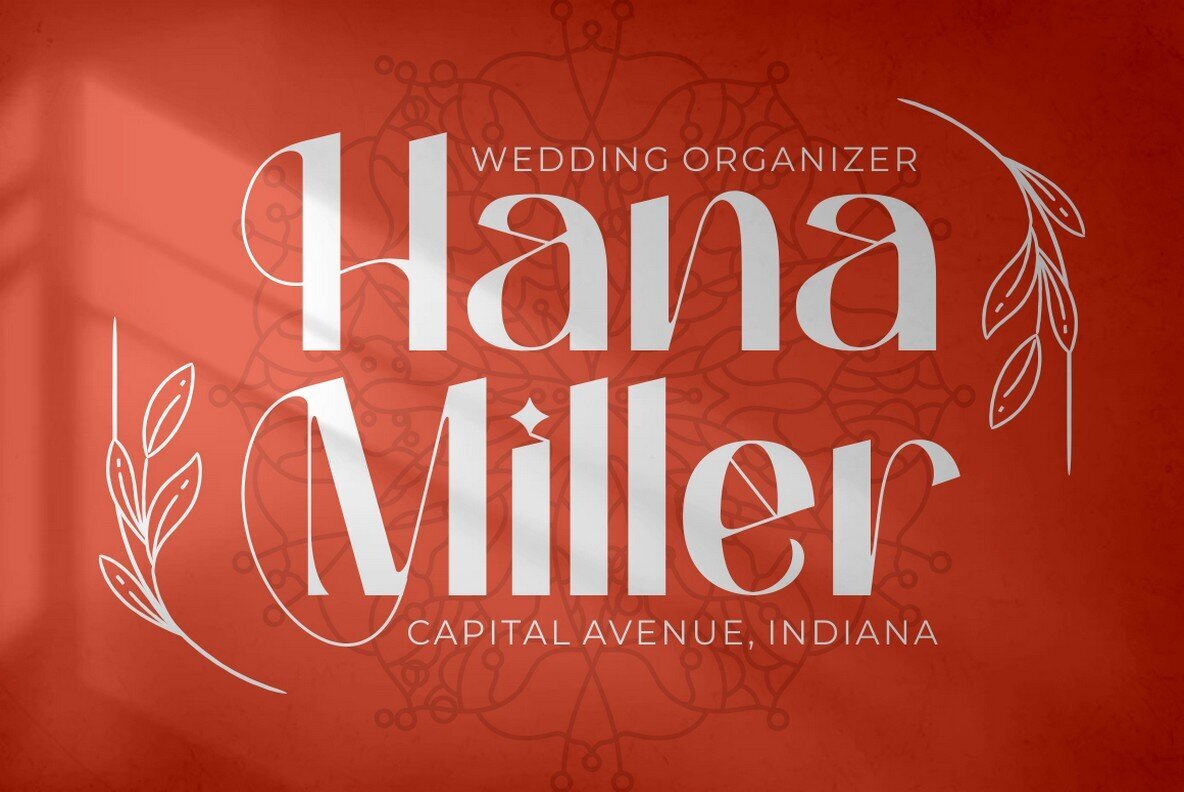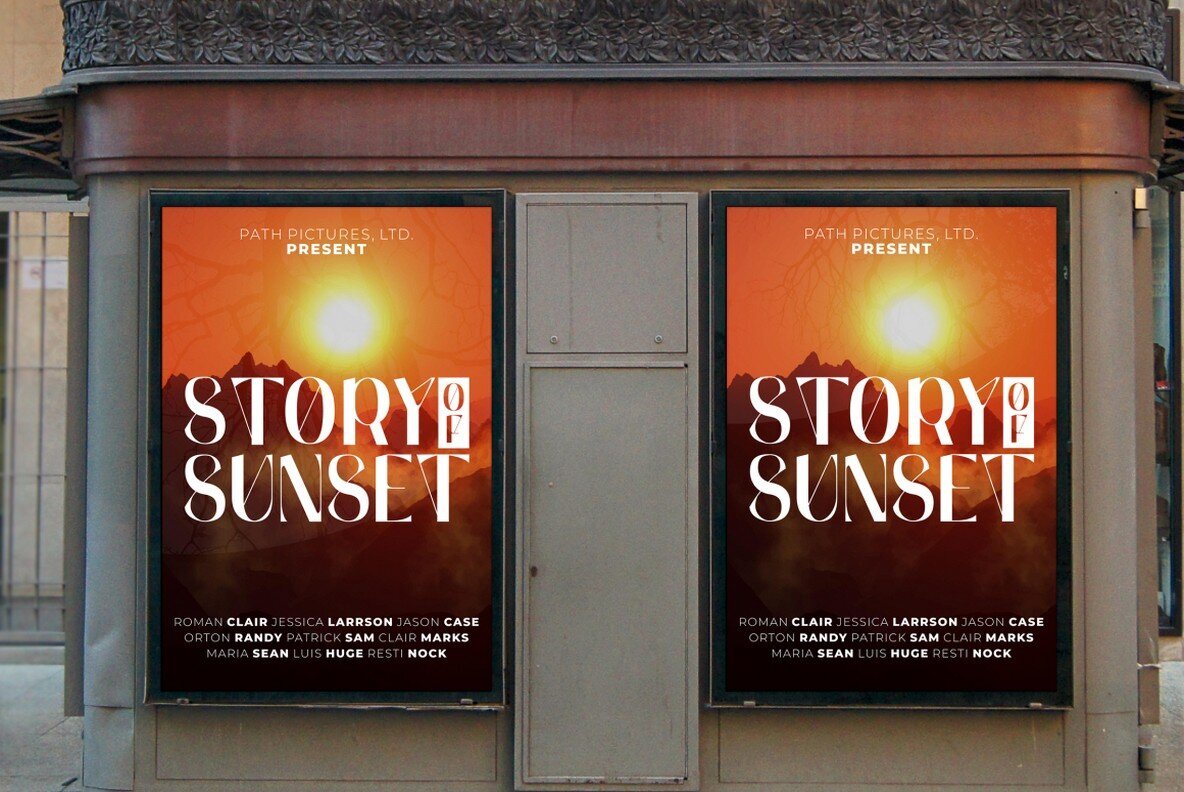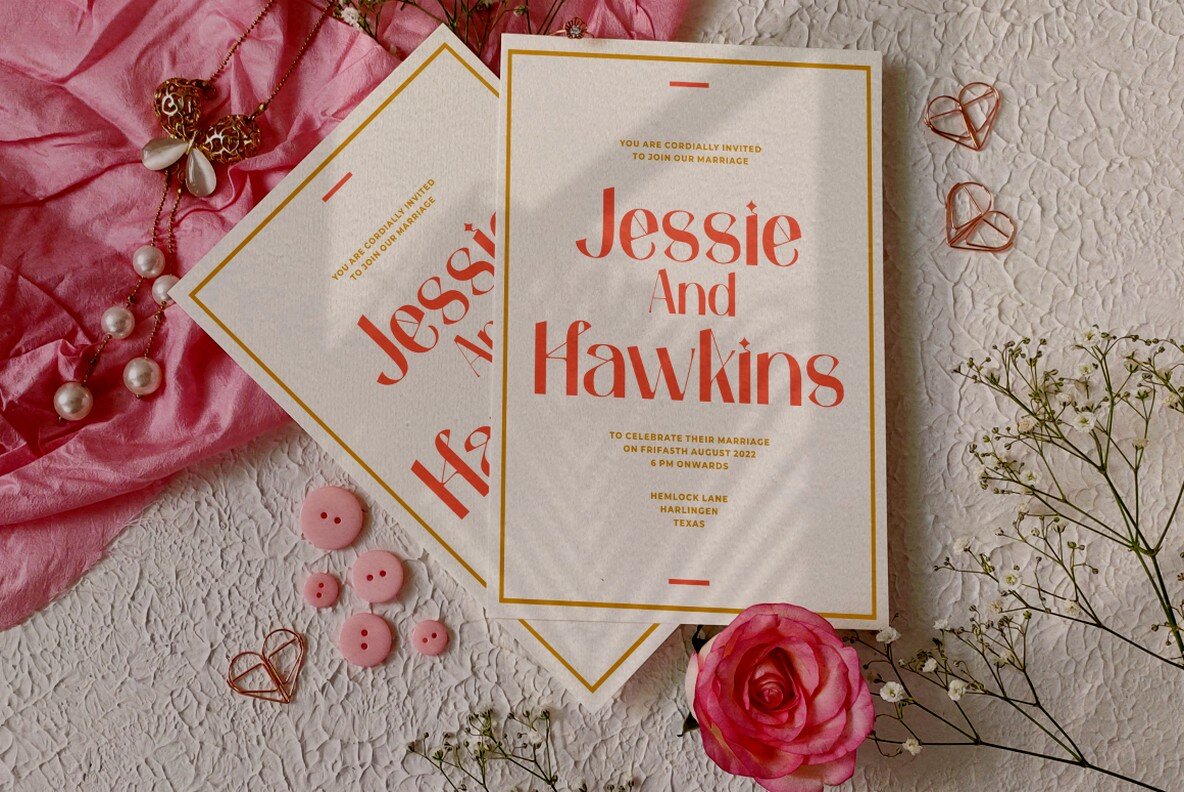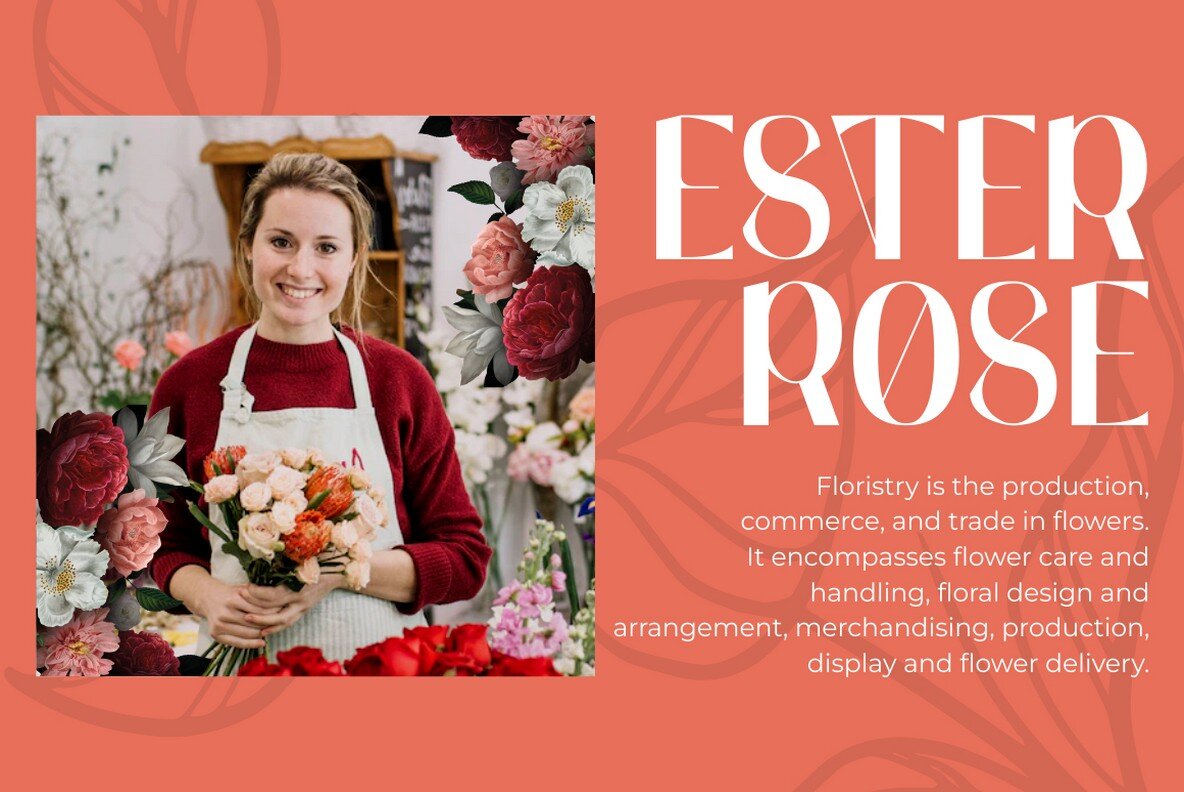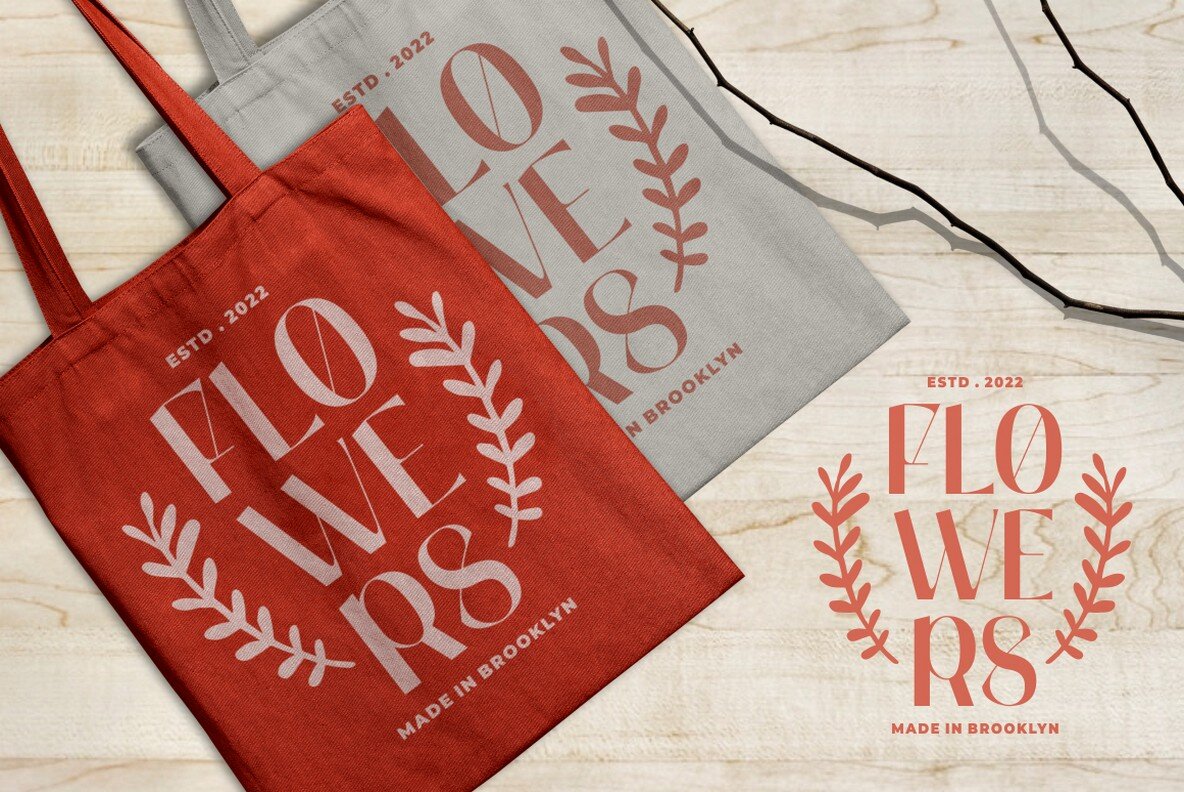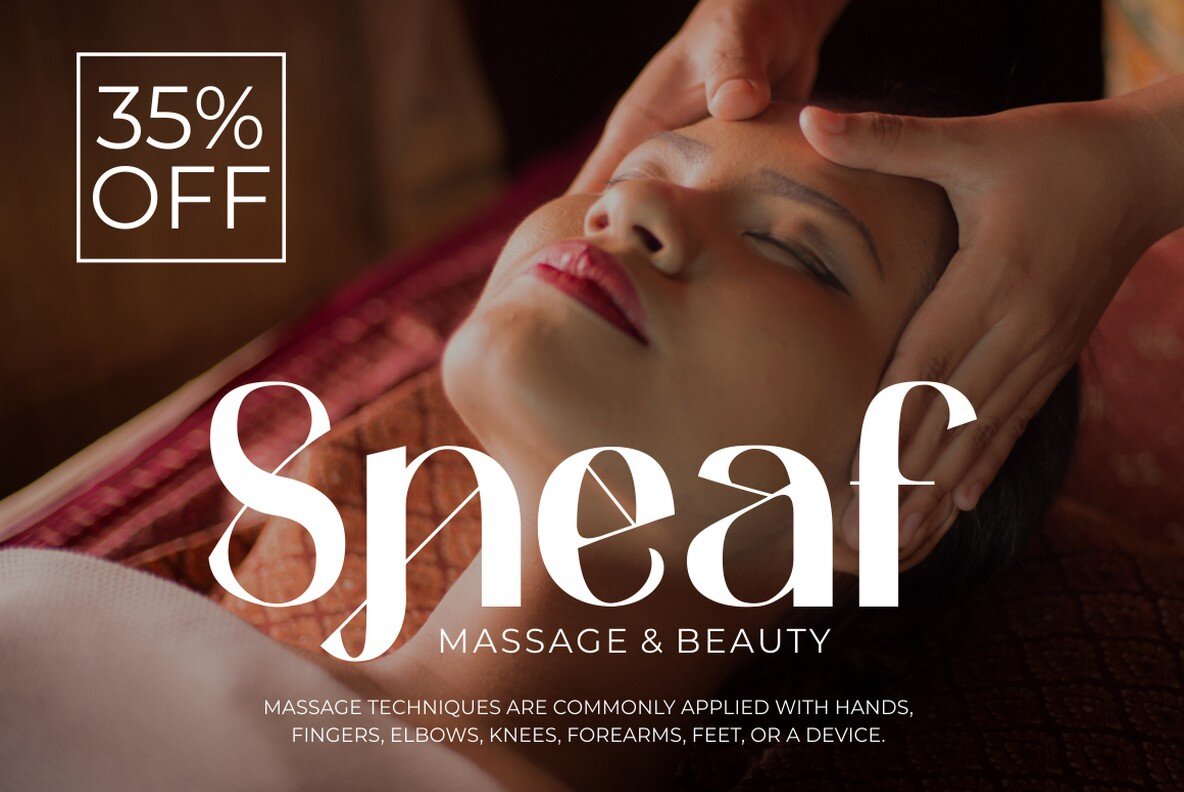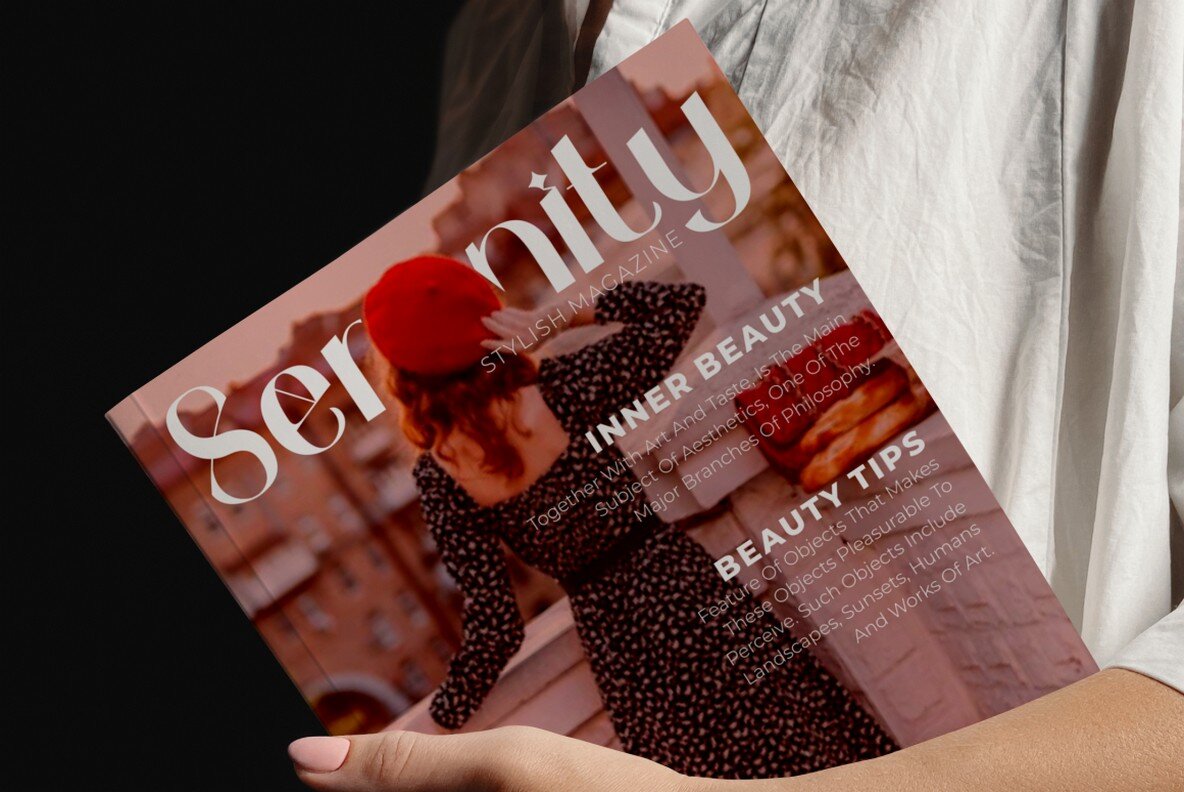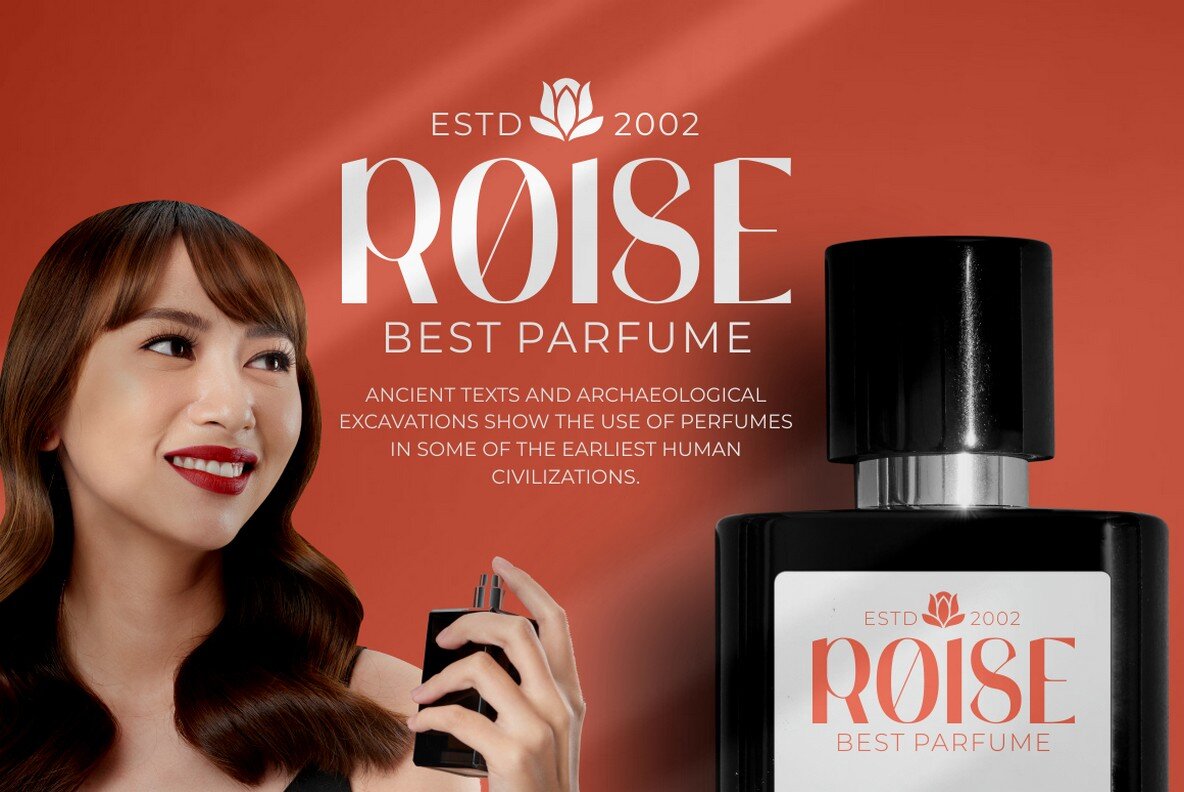
Yenisei Font
Yenisei Regular
Yenisei is a modern serif font imbued with the elegance of luxury typography and the clean lines of contemporary design. Its unique character brings together traditional serif elements with a modern flair, characterized by distinctive ligatures that add depth and sophistication to any creative endeavor. Features: Maximize the potential of Yenisei by utilizing OpenType features available in programs such as Adobe Illustrator, Photoshop, Indesign, and Corel Draw. Allow Yenisei to bring a refined touch to your graphic projects with its beautifully crafted alternates and ligatures.Yenisei: A Fusion of Tradition and Modernity